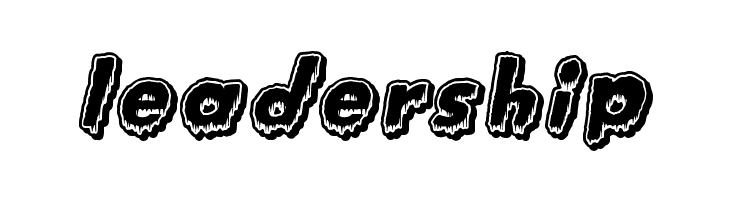
A bold, monospaced font with a classic typewriter style.
A bold, italic monospaced font with a classic typewriter style.
A monospaced italic font with a classic, readable design.
A bold, decorative font with a Western, wood-grain aesthetic.
A bold, cracked texture font with a rugged, distressed style.
A bold, edgy font with sharp angles and dynamic strokes.
A bold, distressed font with a grunge, fragmented appearance.
A bold, distressed font with a rugged, hand-drawn appearance.
A bold, brush-style font with dynamic and expressive strokes.
A playful, hand-drawn font with quirky, cartoonish eyes on each character.
A bold, playful font with a rounded, bubbly design ideal for retro-themed projects.
A bold, playful font with thick, rounded strokes and a retro-modern style.
A bold, dripping font with a spooky, horror-themed design.
A whimsical, eerie font with a hand-drawn, vintage circus style.
A bold, futuristic font with a stencil-like, geometric design.
A bold, italicized font with a futuristic and angular design.
A modern, geometric font with tall, narrow characters and a futuristic style.
A bold, geometric font with Art Deco influences and sharp, clean lines.
A bold, geometric font with art deco influences and a condensed, vertical style.
A bold, geometric font with an art deco influence, perfect for striking visual designs.
A bold, italicized font with a dynamic, futuristic style.
A modern, italic font with sharp angles and a dynamic, forward-leaning style.
A bold, italic font with a modern, angular design.
A bold, modern decorative font with unique geometric cutouts and expanded width.
A dot-matrix style font with a digital and modern aesthetic.
A pixelated, geometric font with a retro digital aesthetic.
A pixelated, grid-based font with a digital, LED screen aesthetic.
A bold, italicized pixelated font resembling LED displays.
A modern, italicized font with characters formed by cross-like shapes, resembling digital displays.
A decorative collection of diverse cross symbols with intricate designs.